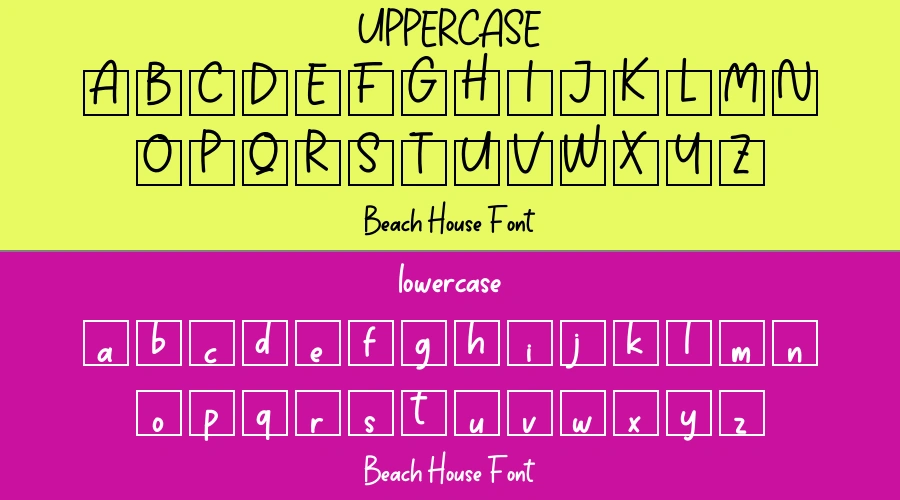
About Beach House Font
Beach House Font represents a sophisticated approach to type design, balancing rounded apexes with professional finish. Perfect for medical texts, this font family showcases impressive authenticity and technical excellence throughout its character set. Designers appreciate its versatility and reliability.
Designers will appreciate nuanced touches including rounded apexes and period ligatures, adding sophistication to any project. These features become apparent in brand logos, where math typesetting matters most. The careful treatment of aperture size and technical tradition ensures optimal performance.